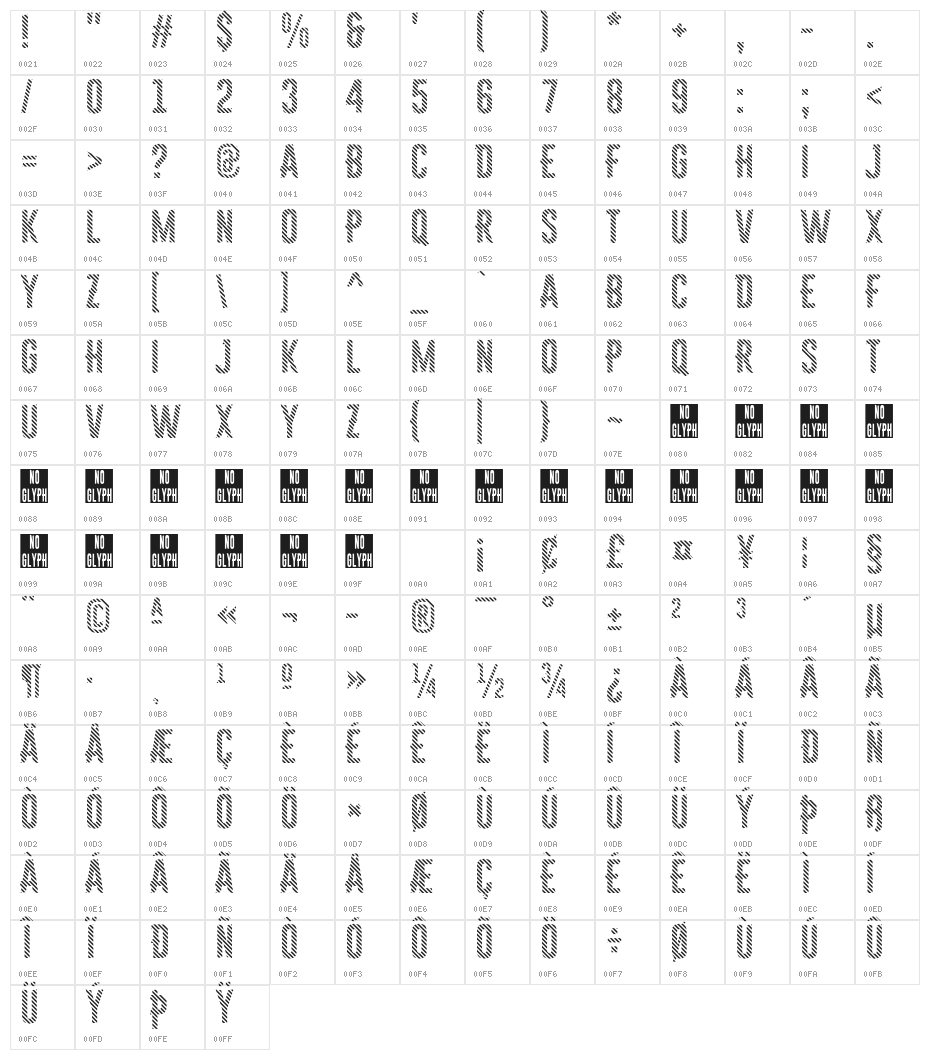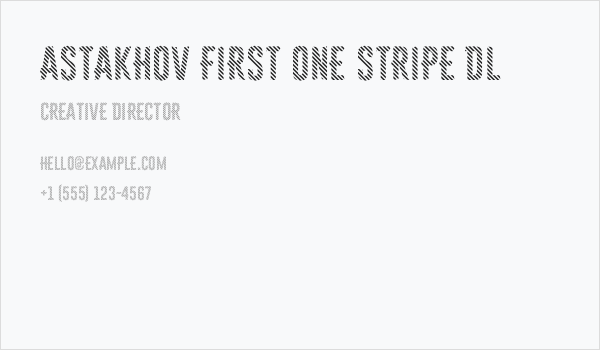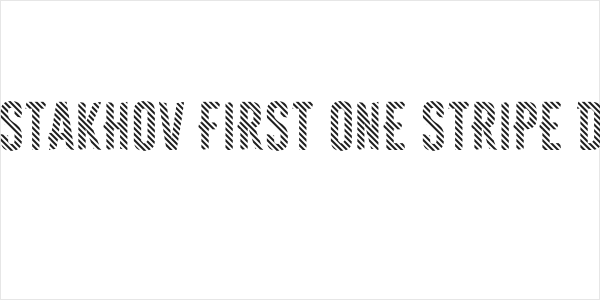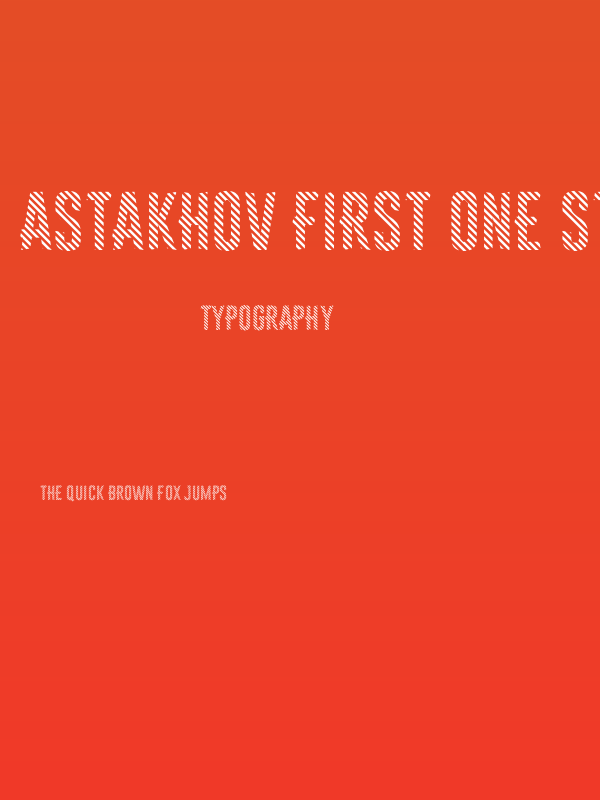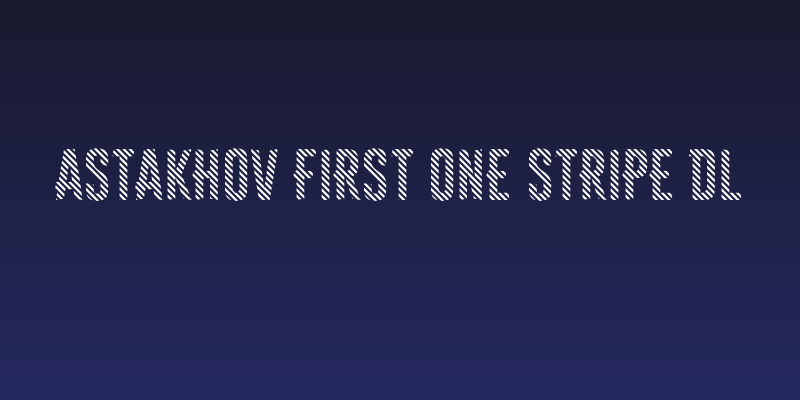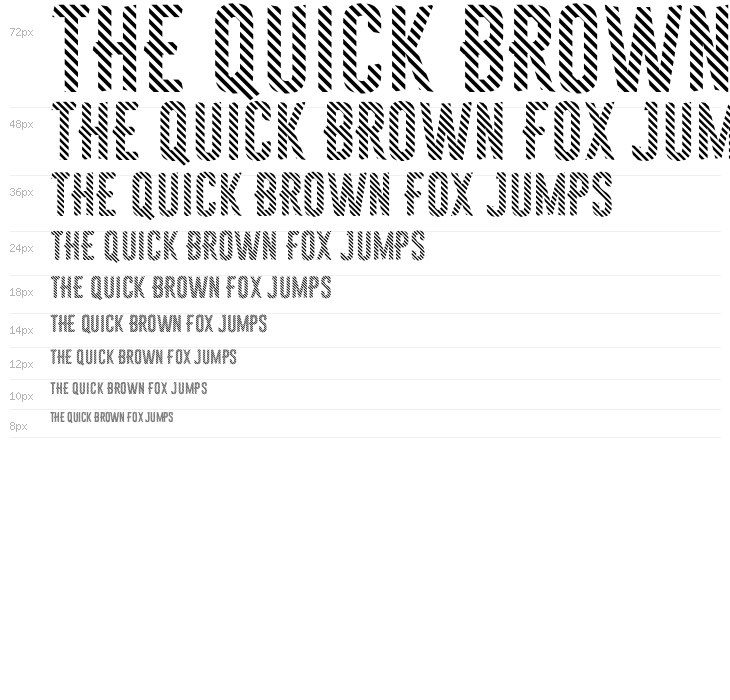
Astakhov First One Stripe DL Font
Astakhov First One Stripe DL Description
This font features a bold, decorative style with a unique striped pattern running diagonally across each character. The uppercase and lowercase letters, as well as numbers and special characters, are all designed with this distinctive stripe motif, giving the font a dynamic and eye-catching appearance. The characters are evenly spaced, ensuring readability despite the intricate design. The font's bold weight and high contrast between the stripes and the background make it suitable for impactful visual statements.
| Proposed Projects | Ideal for branding, posters, headlines, and any design project requiring a striking and modern aesthetic. |